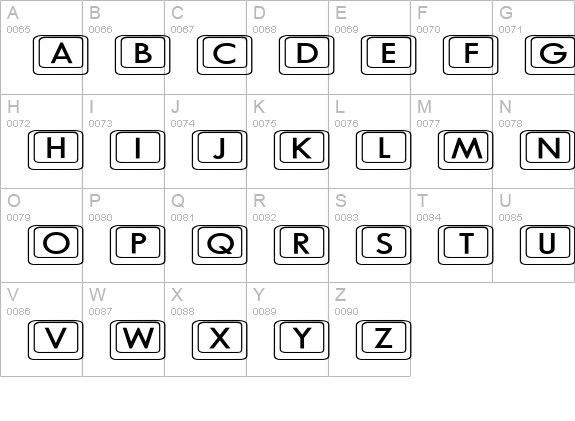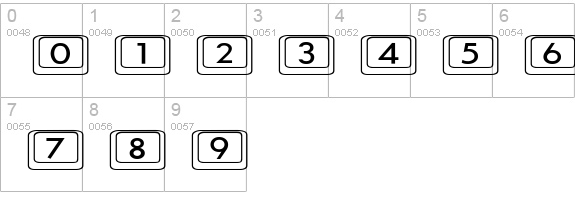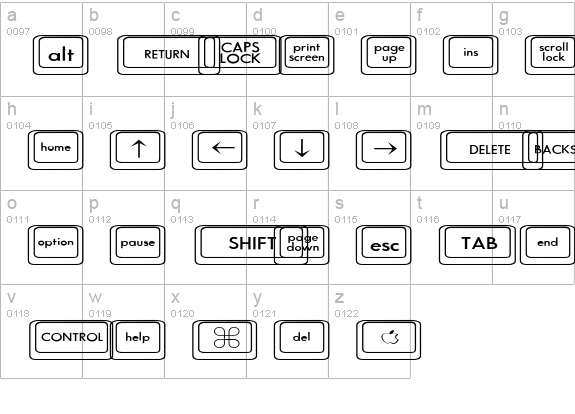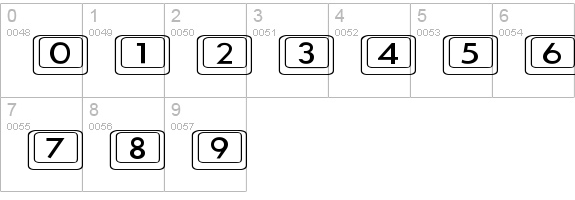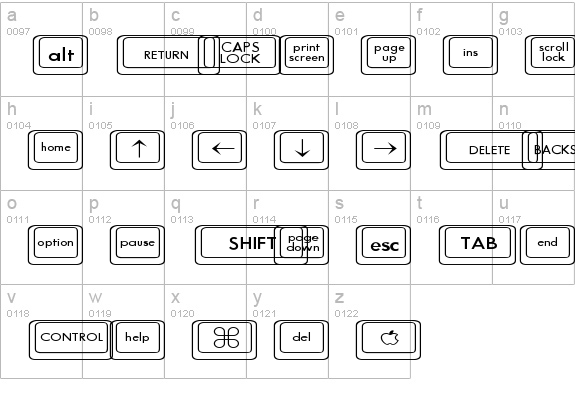
Keyboard KeysWd Wide Font Details
Keyboard KeysWd Wide is a distinctive, extended-width variant in the Keyboard typeface family \xE2\x80\x94 well suited to design and typography projects.